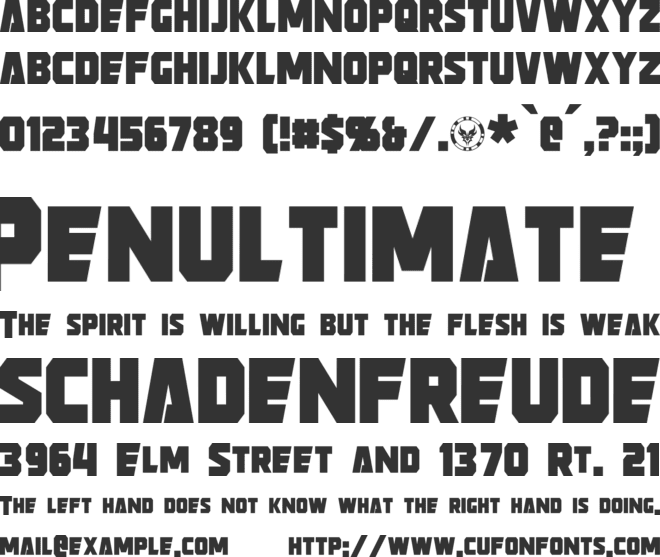
Strongarm Font Family
Strongarm is a thick, bold, semi-stencil-like face based on the title logo of Hasbro’s Transformers: Robots in Disguise (2015) line. Wheeled Autobot, Decepticon, and Predacon symbols included. The typeface includes full alphabet, extended punctuation, and euro. It also comes available in regular, bold, italic, and bold-italic styles.